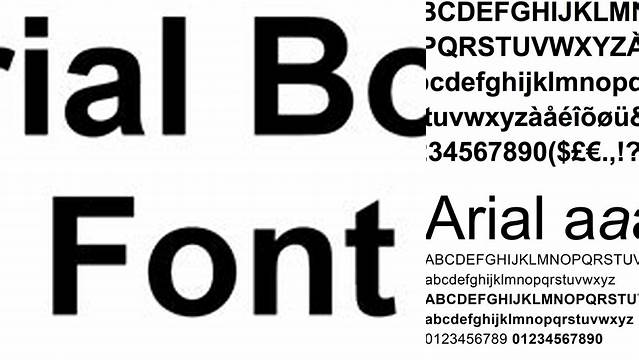
Arial Bold Font: The Ultimate Guide
Arial Bold is a classic and versatile font that has been used extensively in various design projects. Its clean and legible appearance makes it a popular choice for both print and digital media. In this comprehensive guide, we will delve into the depths of Arial Bold, exploring its history, characteristics, usage, and everything else you need to know about this iconic typeface. So, buckle up, font enthusiasts, and let's embark on this journey together!
1. What is Arial Bold?
Arial Bold is a boldface variant of the Arial typeface, a sans-serif font that was designed by Robin Nicholas and Patricia Saunders in 1982 for Monotype Typography. Arial itself was created as a more cost-effective alternative to Helvetica, a widely used sans-serif font. Arial Bold, as the name suggests, is a heavier version of Arial, giving it a more prominent and impactful appearance. Its bold weight makes it ideal for headlines, titles, and other applications where emphasis is required. The font’s clear and straightforward design ensures readability across various mediums, solidifying its place as a staple in the design world. The widespread use of Arial Bold can be attributed to its inclusion in Microsoft Windows operating systems, making it readily available to a vast number of users.
2. The History of Arial Bold
To truly appreciate Arial Bold, it’s essential to understand its historical context. As mentioned earlier, Arial was developed in 1982 as an alternative to Helvetica. The font was commissioned by Microsoft, who sought a typeface that was metrically compatible with Helvetica but didn't require licensing fees. This decision was crucial as it allowed Microsoft to offer a visually similar font without incurring significant costs. Arial Bold, as a derivative of the original Arial, shares this history. Its creation was a response to the need for a bold version of a widely accessible font. The font quickly gained traction, especially with the widespread adoption of Windows. The Arial family, including Arial Bold, became synonymous with digital typography in the late 20th and early 21st centuries. Its history is a testament to the practical needs of the time, highlighting how accessibility and cost-effectiveness can shape the landscape of design.
3. Key Characteristics of Arial Bold Font
Understanding the key characteristics of Arial Bold is crucial for effective use. This font is known for its clean lines, uniform strokes, and open forms, which contribute to its excellent readability. The bold weight enhances these features, making the characters stand out even more. Arial Bold has a relatively large x-height (the height of the lowercase letters), which further improves legibility. Its terminals (the ends of the strokes) are cut off horizontally, giving it a contemporary and slightly geometric feel. The overall design is neutral, which means it doesn't carry strong emotional connotations, making it suitable for a wide range of applications. One of the defining features of Arial Bold is its similarity to Helvetica, but subtle differences exist. For instance, the terminals of the lowercase 't' and the curve of the lowercase 'a' differ slightly, giving Arial Bold its unique identity. Knowing these characteristics helps designers make informed decisions about when and how to use this font effectively.
4. Arial Bold vs. Arial Regular: What’s the Difference?
The most obvious difference between Arial Bold and Arial Regular is the weight of the characters. Arial Bold has thicker strokes, giving it a heavier and more prominent appearance. This makes it ideal for headlines, titles, and any text that needs to stand out. Arial Regular, on the other hand, is lighter and more suitable for body text and other applications where readability over extended periods is essential. While both fonts share the same basic design, the bold version is designed to grab attention, while the regular version is designed for comfortable reading. Think of Arial Bold as the spotlight and Arial Regular as the supporting cast. They work together to create a balanced and visually appealing design. Using Arial Bold strategically can draw the reader's eye to important information, while Arial Regular ensures the rest of the content is easily digestible.
5. Arial Bold vs. Helvetica Bold: A Detailed Comparison
The comparison between Arial Bold and Helvetica Bold is a classic topic in typography discussions. While they appear similar at first glance, there are key differences. Helvetica Bold, designed by Max Miedinger in 1957, is often considered the gold standard of sans-serif fonts. Arial Bold was created to be metrically compatible with Helvetica but with some distinct modifications. One notable difference is the terminals: Helvetica's are cut off at a sharper angle, while Arial's are more horizontal. The curves in letters like 'a', 'r', and 'g' also differ subtly. Some designers argue that Helvetica has a more refined and sophisticated look, while Arial is perceived as slightly more generic. However, Arial Bold offers excellent readability and is often preferred for digital displays due to its clear rendering. The choice between the two often comes down to personal preference and the specific needs of the project. Understanding these nuances can help you select the font that best conveys your intended message.
6. Where to Use Arial Bold: Best Use Cases
Arial Bold’s versatility makes it suitable for a wide range of applications. It shines in headlines and titles where its bold weight commands attention. In print, it's often used in brochures, posters, and advertisements. In digital media, Arial Bold is a popular choice for website headers, navigation menus, and call-to-action buttons. Its clear and legible design makes it an excellent option for signage and wayfinding systems. Many corporate branding guidelines include Arial Bold as part of their font palette, reflecting its professional and trustworthy image. However, it's essential to use it judiciously. Overusing Arial Bold can make a design look cluttered or overwhelming. Like any font, it's most effective when used purposefully and in harmony with other design elements. By understanding its strengths and limitations, you can leverage Arial Bold to create visually compelling and effective designs.
7. Arial Bold in Print Media: Tips and Tricks
When using Arial Bold in print media, there are a few key considerations. Ensure the font size is appropriate for the viewing distance; headlines can be larger, but body text should remain legible. Pay attention to line spacing and kerning to avoid overcrowding or gaps between letters. Arial Bold works well on both glossy and matte paper, but the ink coverage might appear slightly different, so consider this during your proofing process. When pairing it with other fonts, opt for those that complement its clean and neutral style. A lighter weight of Arial or a serif font with similar proportions can create a balanced and professional look. Remember that color contrast is crucial; dark text on a light background generally provides the best readability. Finally, always proofread your work carefully, as even a well-designed layout can be undermined by typos. By following these tips, you can maximize the impact of Arial Bold in your printed materials.
8. Arial Bold in Digital Media: Optimizing for the Web
Using Arial Bold effectively in digital media requires attention to specific considerations. One key aspect is font rendering across different browsers and devices. Arial Bold is a web-safe font, meaning it's pre-installed on most systems, ensuring consistent display. However, you should still test your designs on various platforms to ensure optimal appearance. For websites, using CSS to specify Arial Bold is straightforward. Consider using font-weight properties to control the boldness, and ensure sufficient contrast between the text and background for accessibility. When using Arial Bold in graphics or images, save your files in a format that preserves font clarity, such as SVG or high-resolution PNG. Pay attention to the file size of your web assets, as overly large images can slow down page loading times. Finally, ensure your website’s typography is responsive, adapting to different screen sizes and resolutions. By optimizing Arial Bold for the web, you can create a seamless and engaging user experience.
9. Pairing Arial Bold with Other Fonts
Pairing Arial Bold with other fonts can elevate your design, creating visual interest and hierarchy. Given its neutral and clean aesthetic, Arial Bold works well with both serif and sans-serif fonts. For a classic and professional look, consider pairing it with a serif font like Times New Roman or Georgia for body text. The contrast between the bold sans-serif headline and the serif body text can create a balanced and readable layout. If you prefer a sans-serif pairing, consider using a lighter weight of Arial or another sans-serif font like Open Sans or Roboto for body text. These fonts share similar characteristics with Arial Bold but offer enough contrast to differentiate between headings and body content. Avoid pairing Arial Bold with overly decorative or script fonts, as these can clash with its simplicity. The key is to choose fonts that complement Arial Bold’s readability and maintain a cohesive visual style.
10. Arial Bold and Accessibility: Ensuring Readability
Accessibility is a crucial consideration in design, and Arial Bold can play a significant role in creating inclusive content. Its clear and legible design makes it a good choice for users with visual impairments. However, simply using Arial Bold isn't enough; you need to follow best practices for accessibility. Ensure sufficient color contrast between the text and background. A contrast ratio of at least 4.5:1 is recommended for normal text and 3:1 for large text. Avoid using color alone to convey meaning, as this can exclude users with color blindness. Use font sizes that are large enough to read comfortably, and provide options for users to adjust text size. When using Arial Bold in digital media, ensure your website is structured semantically, with proper use of headings and subheadings. Provide alternative text for images and ensure your content is navigable using a keyboard. By considering accessibility from the outset, you can create designs that are inclusive and user-friendly.
11. The Psychology of Arial Bold: What Message Does it Convey?
Fonts, like colors, have psychological associations. Arial Bold, with its clean and straightforward design, typically conveys a sense of professionalism, clarity, and efficiency. Its neutrality makes it suitable for conveying information in an unbiased manner. The boldness adds emphasis and can evoke feelings of confidence and authority. However, some critics argue that Arial Bold’s ubiquity can make it feel generic or impersonal. Therefore, it's essential to consider the context and audience when using it. In corporate settings, Arial Bold can reinforce a brand’s image of reliability and competence. In more creative contexts, it might need to be paired with other elements to add personality and warmth. Understanding the psychological impact of fonts can help you choose the right typeface to communicate your intended message effectively.
12. Arial Bold in Branding: Building a Strong Visual Identity
Arial Bold can be a powerful asset in building a strong visual identity for your brand. Its clean and professional appearance makes it a suitable choice for logos, taglines, and other branding materials. When used consistently across all your brand communications, it can help create a cohesive and recognizable identity. However, the key to effective branding is differentiation. While Arial Bold is a widely used font, you can make it unique to your brand by combining it with other visual elements, such as color palettes, imagery, and design styles. Consider using Arial Bold in combination with a secondary font that reflects your brand’s personality. For example, a script font can add a touch of elegance, while a geometric sans-serif can convey a sense of modernity. Remember, your brand’s visual identity should be consistent, memorable, and reflective of your values and mission. By strategically using Arial Bold, you can create a brand that stands out in a crowded marketplace.
13. Arial Bold for Headlines: Grabbing Attention Instantly
In the realm of typography, Arial Bold emerges as a stalwart choice for headlines, seamlessly blending impact and legibility. Its robust weight immediately seizes the reader's attention, making it an ideal selection for newspapers, magazines, websites, and a variety of marketing materials. When tasked with designing a headline that commands notice, Arial Bold's inherent clarity ensures the message is conveyed with utmost precision. Yet, the effective deployment of Arial Bold in headlines transcends mere font selection; it's about crafting an engaging visual hierarchy. Consider varying the font size to underscore the importance of your headlines in relation to the body text, thereby guiding the reader's eye across the page. Moreover, the careful adjustment of letter spacing and line height can significantly amplify readability, preventing the headline from appearing cluttered. The strategic use of color further enhances impact, ensuring the headline not only captures attention but also elegantly directs the reader into the heart of the content, making Arial Bold an indispensable tool for any designer aiming to make a bold statement.
14. Arial Bold for Body Text: When to Use It (and When Not To)
While Arial Bold is celebrated for its assertive presence in headlines, its deployment in body text necessitates a more circumspect approach. The very attribute that makes Arial Bold a standout choice for titles—its robust weight—can become a drawback when applied extensively in body paragraphs. The density of its strokes can lead to visual fatigue, diminishing the reader's engagement over longer stretches of text. However, there are judicious scenarios where Arial Bold can add value to body text, such as highlighting key phrases, drawing attention to critical statistics, or setting apart navigational cues within a document. In these instances, Arial Bold acts as a beacon, guiding the reader's focus without overwhelming the overall texture of the text. Yet, the axiom holds true: balance is key. Reserve Arial Bold for strategic emphasis, and for the bulk of your text, opt for a lighter weight from the Arial family or a complementary typeface that ensures a comfortable reading experience, preserving the clarity and readability crucial for effective communication.
15. Arial Bold in Logos: Creating a Memorable Mark
In the domain of logo design, Arial Bold stands as a paragon of adaptability, lending its clean lines and assertive form to the creation of marks that resonate with clarity and strength. Its inherent legibility ensures that a logo remains discernible across a spectrum of scales, from the expanse of a billboard to the confines of a business card, making it a versatile asset for brand representation. Yet, the true genius in employing Arial Bold for logo design lies in its potential for personalization. While its basic form offers a sense of familiarity and trust, the incorporation of bespoke modifications—be it through subtle alterations to letterforms, the addition of unique graphic elements, or the interplay with a distinctive color palette—can transform Arial Bold into a signature emblem of a brand's identity. The judicious pairing of Arial Bold with a secondary typeface can further enhance a logo's character, creating a visual harmony that speaks volumes about the brand's ethos and values, underscoring the font's role as a cornerstone in crafting memorable and impactful logos.
16. Arial Bold for Web Design: Ensuring a Seamless User Experience
Within the digital landscape, Arial Bold assumes a critical role in web design, where its primary function is to ensure a seamless and engaging user experience. As a core web-safe font, Arial Bold enjoys near-universal support across browsers and operating systems, mitigating the vexation of rendering issues and font substitutions that can mar a website's visual appeal. This reliability makes it an indispensable tool for web designers aiming to deliver a consistent and polished online presence. The deployment of Arial Bold in headlines and navigation menus serves to establish a clear visual hierarchy, guiding users effortlessly through the website's content. However, the key to maximizing Arial Bold's potential in web design lies in striking a delicate balance between impact and readability. Optimizing font sizes, line heights, and color contrasts ensures that text remains legible and inviting, even on screens of varying dimensions and resolutions. By meticulously attending to these nuances, designers can harness Arial Bold to craft websites that are not only visually compelling but also supremely user-friendly, fostering an environment that encourages exploration and interaction.
17. Arial Bold for Mobile Devices: Optimizing for Small Screens
The proliferation of mobile devices has cast a spotlight on the importance of optimizing typography for smaller screens, a domain where Arial Bold excels due to its innate clarity and legibility. In the mobile context, where screen real estate is at a premium, the use of Arial Bold in headlines and key content elements ensures that information is conveyed with maximum impact and minimum visual clutter. This is particularly crucial for mobile applications and websites, where users often interact with content on the go, necessitating a design that is both intuitive and easily readable. To leverage Arial Bold effectively on mobile devices, designers must prioritize font sizes that remain comfortably legible without overwhelming the screen, and line spacing that prevents text from appearing cramped. Furthermore, thoughtful consideration of color contrast enhances readability under varying lighting conditions, a common challenge in mobile usage scenarios. By meticulously optimizing these parameters, designers can harness Arial Bold to create mobile interfaces that are not only visually appealing but also exceptionally user-friendly, ensuring a seamless and engaging experience for users on the move.
18. Arial Bold and Microsoft Office: A Perfect Match?
The harmonious integration of Arial Bold within the Microsoft Office suite has cemented its status as a go-to font for a myriad of professional and personal documents. Its ubiquity across the Microsoft ecosystem ensures a consistent typographic appearance, regardless of the device or operating system on which a document is viewed, a boon for seamless collaboration and communication. Within Microsoft Office applications, Arial Bold shines as a versatile asset, lending its assertive weight to headlines, subheadings, and emphasis within body text, thereby establishing a clear visual hierarchy that enhances readability and comprehension. Its clean lines and straightforward design make it particularly well-suited for reports, presentations, and other formal documents where clarity and professionalism are paramount. However, to fully leverage Arial Bold's potential in Microsoft Office, it's crucial to exercise restraint, reserving its bold presence for strategic highlights rather than overwhelming the text. By carefully balancing Arial Bold with lighter weights and complementary typefaces, users can craft documents that are not only visually engaging but also impeccably professional.
19. Alternatives to Arial Bold: Exploring Other Bold Sans-Serif Fonts
While Arial Bold remains a cornerstone in the world of typography, exploring alternatives can inject fresh personality and visual interest into your designs. The realm of bold sans-serif fonts offers a rich tapestry of options, each with its unique character and nuances. Helvetica Bold, often considered Arial's closest kin, presents a slightly more refined aesthetic, characterized by its geometric precision and timeless appeal. Open Sans Bold, designed with optimized readability in mind, stands as a versatile choice for both web and print, offering a friendly and approachable demeanor. For projects seeking a touch of modernity, Montserrat Bold boasts clean, geometric forms reminiscent of early 20th-century urban typography. Lato Bold, with its semi-rounded details, conveys warmth and approachability, making it an excellent choice for brands aiming to connect on a personal level. Exploring these alternatives to Arial Bold allows designers to fine-tune their typographic palette, selecting the font that best embodies the message and spirit of their project, ensuring a design that is not only effective but also distinctly memorable.
20. Arial Bold and Licensing: Understanding the Fine Print
Navigating the complexities of font licensing is crucial for designers and businesses alike, and Arial Bold is no exception. As a standard font included with Microsoft Windows and macOS operating systems, Arial Bold often comes pre-licensed for a wide array of personal and commercial uses. However, the scope of this pre-licensing typically extends to the creation of documents and designs viewed on the licensed device, and may not cover every conceivable application. For instance, embedding Arial Bold in software applications or redistributing it as a standalone font file often necessitates a separate license from Monotype, the font's owner. Similarly, using Arial Bold in certain high-volume commercial printing projects may trigger the need for additional licensing considerations. To ensure full compliance and avoid potential legal pitfalls, it's imperative to meticulously review the licensing terms associated with Arial Bold, and when in doubt, seek clarification directly from Monotype. This proactive approach safeguards your projects and upholds the intellectual property rights of the font's creators.
21. Downloading Arial Bold: Where to Find the Font File
Acquiring Arial Bold is a straightforward endeavor, thanks to its widespread availability. As a standard font bundled with both Microsoft Windows and macOS operating systems, Arial Bold is typically pre-installed on most computers, ready for immediate use. However, if you find yourself needing to download the font file separately—perhaps for use in a specific application or on a different operating system—several reputable online repositories offer Arial Bold for download. Websites specializing in free fonts often host Arial Bold, though it's crucial to exercise caution and download only from trusted sources to avoid the risk of malware or unlicensed font files. For guaranteed authenticity and adherence to licensing terms, obtaining Arial Bold directly from Monotype, the font's owner, or through authorized font vendors is the safest route. These sources ensure you receive the correct font file and the appropriate usage rights, providing peace of mind and safeguarding your projects.
22. Installing Arial Bold: A Step-by-Step Guide
Installing Arial Bold on your computer is a simple process, enabling you to seamlessly incorporate this versatile font into your design projects and documents. The installation procedure varies slightly depending on your operating system, but the core steps remain consistent. On Windows, begin by locating the Arial Bold font file (typically with a .ttf or .otf extension). Right-click the file and select "Install" from the context menu. Windows will automatically install the font, making it available across all applications. Alternatively, you can copy the font file to the Fonts folder (usually located in C:\Windows\Fonts) to achieve the same result. On macOS, double-clicking the font file opens Font Book, macOS's built-in font management application. Click the "Install Font" button at the bottom of the Font Book window to add Arial Bold to your system. Once installed, Arial Bold will appear in the font menus of your applications, ready to enhance your typographic palette.
23. Arial Bold on Different Operating Systems: Compatibility Considerations
One of Arial Bold's significant advantages is its broad compatibility across various operating systems, making it a reliable choice for projects intended to be viewed on different platforms. As a standard font included with both Microsoft Windows and macOS, Arial Bold renders consistently across these environments, ensuring your designs retain their intended appearance regardless of the viewer's operating system. However, subtle differences in font rendering may arise due to variations in the operating system's font rendering engine or the specific application used to display the text. To mitigate these potential discrepancies, it's advisable to test your designs on multiple operating systems and browsers, especially for web-based projects. This proactive approach helps identify any unexpected rendering issues early in the design process, allowing you to make adjustments that ensure a uniform and polished presentation across the board. In most cases, Arial Bold's inherent cross-platform compatibility makes it a dependable choice for a wide range of applications.
24. Arial Bold and Font Weights: Exploring the Arial Family
Arial Bold is but one member of the extensive Arial font family, a versatile collection that offers a spectrum of weights and styles to suit diverse design needs. Understanding the interplay between these variants can significantly enhance your typographic toolkit, allowing you to create nuanced and visually engaging layouts. The Arial family typically includes Arial Regular (the standard weight), Arial Italic, Arial Bold, and Arial Bold Italic, each serving a distinct purpose within a design. Arial Regular forms the backbone of body text, providing a clear and legible foundation, while Arial Italic adds emphasis and visual interest to specific words or phrases. Arial Bold, as we've explored, commands attention in headlines and titles, and Arial Bold Italic combines the strength of the bold weight with the flair of italics for a powerful visual statement. By strategically leveraging these different weights, designers can establish a clear visual hierarchy, guiding the reader's eye and ensuring a seamless flow of information. The Arial family's cohesion allows for harmonious font pairings within a single design, fostering a sense of unity and professionalism.
25. Using Arial Bold in CSS: Styling Your Web Pages
Incorporating Arial Bold into your web pages is a straightforward process, thanks to the power of CSS (Cascading Style Sheets). CSS provides the mechanism for controlling the visual presentation of your website, including font styles. To specify Arial Bold for an element on your page, you can use the font-family property, setting its value to "Arial Bold" or simply "Arial" since browsers will automatically select the bold variant if it's available. For finer control over font weight, the font-weight property comes into play. Setting font-weight to bold explicitly instructs the browser to render the text in a bold style, ensuring consistency across different browsers and operating systems. Moreover, CSS allows you to combine Arial Bold with other typographic properties, such as font-size, line-height, and color, to achieve the precise visual effect you desire. By leveraging CSS effectively, you can harness Arial Bold's clarity and impact to create web pages that are both visually appealing and highly readable, enhancing the overall user experience.
26. Arial Bold and Kerning: Fine-Tuning Letter Spacing
Kerning, the art of adjusting the spacing between individual letters, plays a crucial role in typography, impacting both readability and visual appeal. While Arial Bold's clean design generally ensures good letter spacing, fine-tuning the kerning can further enhance its aesthetic qualities, particularly in headlines and logos where the font is displayed at larger sizes. Kerning addresses the fact that certain letter combinations can appear too close together or too far apart due to their shapes. For instance, the space between a capital "A" and a capital "V" might need adjustment to achieve a balanced visual rhythm. Most design software offers manual kerning controls, allowing you to precisely tweak the spacing between character pairs. Additionally, CSS provides the letter-spacing property, enabling you to adjust kerning on web pages. While subtle, these adjustments can significantly improve the overall appearance of your text, ensuring that Arial Bold's inherent clarity is complemented by impeccable letter spacing. Paying attention to kerning demonstrates a commitment to typographic excellence, elevating your designs from good to outstanding.
27. Arial Bold and Leading: Optimizing Line Height for Readability
Leading, also known as line-height, is the vertical space between lines of text, and it's a critical factor in readability. Optimizing leading, especially when using Arial Bold, ensures that your text is comfortable to read and visually appealing. Insufficient leading can make lines appear cramped and difficult to distinguish, while excessive leading can create a disconnected and disjointed feel. The ideal leading depends on several factors, including the font size, line length, and the typeface itself. Arial Bold, with its heavier weight, often benefits from slightly more leading than lighter fonts to prevent the text from appearing too dense. A general guideline is to set the leading to approximately 120% to 145% of the font size, but experimentation is key. Design software and CSS both provide controls for adjusting leading, allowing you to fine-tune the spacing to achieve optimal readability. Well-adjusted leading enhances the reading experience, ensuring that your message is conveyed effectively and your designs are visually inviting.
28. The Future of Arial Bold: Will It Remain a Design Staple?
The question of Arial Bold's future as a design staple invites speculation, but its enduring qualities suggest a continued presence in the typographic landscape. Its widespread availability, clean design, and excellent legibility have cemented its status as a reliable choice for a multitude of applications, from corporate documents to web design. However, the design world is in constant flux, with new fonts and styles emerging regularly. While Arial Bold may not always be the most cutting-edge or distinctive option, its neutrality and versatility provide a solid foundation for many projects. Its role may evolve, perhaps used more strategically in combination with more expressive typefaces, but its fundamental qualities ensure its relevance. The future of Arial Bold likely lies in its adaptability, continuing to serve as a dependable workhorse in the designer's toolkit, even as trends and tastes shift. Its legacy is one of practicality and clarity, attributes that are timeless in the realm of typography.
29. Common Mistakes When Using Arial Bold (and How to Avoid Them)
Even a versatile font like Arial Bold can be misused, leading to less-than-optimal results. One common mistake is overuse, employing Arial Bold throughout a design without sufficient contrast or hierarchy. This can create a visually monotonous effect, diminishing the impact of the font. Another pitfall is neglecting proper leading and kerning, resulting in text that is cramped or uneven. Insufficient color contrast between the text and background can also hinder readability, especially for users with visual impairments. To avoid these mistakes, approach Arial Bold with intention and balance. Use it strategically to highlight key elements, pair it with complementary fonts, and pay close attention to typographic details like leading and kerning. Always prioritize readability and accessibility, ensuring that your designs are not only visually appealing but also user-friendly. By being mindful of these common pitfalls, you can harness Arial Bold's strengths to create effective and polished designs.
30. Arial Bold: A Timeless Font for Modern Design
In conclusion, Arial Bold stands as a testament to the enduring power of clean, legible typography in modern design. Its simplicity and versatility have made it a staple across various mediums, from print to digital, and its widespread availability ensures its continued relevance. While it may not be the most avant-garde choice, its neutrality allows it to seamlessly integrate into a wide range of design styles, providing a solid foundation for effective communication. By understanding its strengths and limitations, designers can leverage Arial Bold to create visually compelling and highly readable designs. Its legacy is one of practicality and clarity, qualities that transcend trends and make it a timeless asset in the designer's toolkit. Arial Bold's future is secure, not as a flashy trendsetter, but as a reliable workhorse, consistently delivering clear and impactful typography.